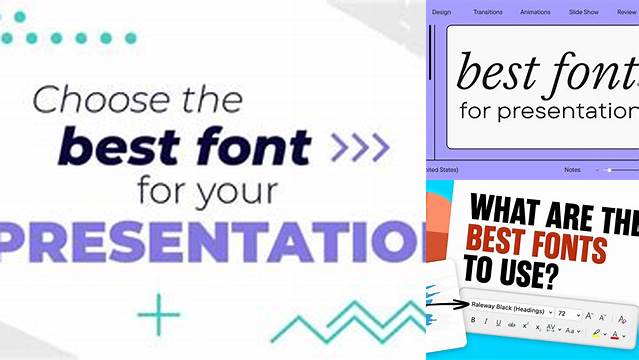
Best PowerPoint Fonts: Top Picks From Reddit
Hey guys! Ever feel like your PowerPoint presentation is falling flat? You've got the killer content, the amazing visuals, but something just isn't clicking? Chances are, your font might be the culprit. Choosing the right font is crucial for readability and grabbing your audience's attention. Think of it this way: your font is the voice of your presentation. Would you want a monotone drone or an engaging speaker?
Navigating the world of fonts can feel overwhelming, especially with so many options out there. That's why I decided to dive into the depths of Reddit – a goldmine of opinions and insights – to uncover the best fonts for PowerPoint presentations, according to the users themselves. This article compiles the top recommendations and dives deep into why these fonts work so well, along with tips for making your presentations shine. We'll explore everything from classic choices that exude professionalism to more modern and creative options that can inject personality into your slides. So, buckle up, font fanatics, and let's get started!
Why Font Choice Matters in PowerPoint
Before we jump into specific font recommendations, let's quickly discuss why your font choice even matters in a PowerPoint presentation. It's easy to overlook, but your font plays a significant role in how your message is received. Imagine presenting a groundbreaking business proposal using Comic Sans – the font itself might distract from your message! The right font, on the other hand, can enhance your message, making it more impactful and memorable. Think of your font as a subtle but powerful tool in your presentation arsenal.
Firstly, readability is king. If your audience can't easily read your text, they'll quickly lose interest, no matter how brilliant your content. A clear, legible font ensures that your message is easily digestible and understood. Think about the size of the room, the projection quality, and the vision of your audience members. A fancy, decorative font might look beautiful on your computer screen, but it could become a blurry mess when projected onto a large screen. Secondly, font choice influences the overall tone and style of your presentation. A serif font like Times New Roman can convey a sense of tradition and formality, while a sans-serif font like Arial often feels more modern and clean. The font you choose should align with the subject matter and your intended audience. Are you presenting to a group of CEOs or a room full of creative designers? Your font choice should reflect the context.
Thirdly, consistency is key. Sticking to a limited number of fonts (typically two or three) throughout your presentation creates a polished and professional look. Too many fonts can make your slides feel cluttered and distracting. Choose a primary font for your body text and a secondary font for your headings or highlights. This creates visual hierarchy and makes your presentation easier to follow. Finally, consider the emotional impact of different fonts. Fonts have personalities! Some fonts feel friendly and approachable, while others feel serious and authoritative. Choosing a font that matches the mood you want to create can subtly influence how your audience perceives your message. A playful font might be perfect for a children's presentation, but it would be disastrous for a corporate pitch.
Top Font Recommendations from Reddit
Alright, let's get to the good stuff! After scouring Reddit threads and forums, I've compiled a list of the top font recommendations for PowerPoint presentations. These fonts are praised for their readability, versatility, and overall visual appeal. Get ready to take notes!
1. Lato
Lato consistently pops up in Reddit discussions as a top choice for presentations. It's a sans-serif font designed by Łukasz Dziedzic, and it strikes a beautiful balance between being modern and professional. Its semi-rounded details give it a warm and friendly feel, while its strong structure ensures excellent readability, even at smaller sizes. Lato is a fantastic option for both body text and headings, making it a versatile workhorse for any presentation. Redditors rave about its clean lines and how well it projects on screens. Many mention that it's a great alternative to Arial or Helvetica, offering a more contemporary feel without sacrificing readability. If you're looking for a font that's both approachable and professional, Lato is definitely worth checking out.
When using Lato, think about pairing it with a slightly bolder font for your headings to create visual contrast. Lato Light can be a great option for subheadings or captions, adding a touch of elegance to your slides. One of the great things about Lato is its availability – it's a free Google Font, so you can easily incorporate it into your presentations without any licensing hassles. Plus, it's a web-safe font, meaning it will render consistently across different devices and browsers, ensuring your presentation looks its best no matter where it's viewed. In short, Lato is a reliable and stylish choice that will elevate your PowerPoint presentations.
2. Open Sans
Another Reddit favorite, Open Sans is a humanist sans-serif font designed by Steve Matteson. It's optimized for print, web, and mobile interfaces, making it an exceptionally versatile choice for presentations. Its open forms and neutral-yet-friendly appearance contribute to its excellent readability, especially in body text. Open Sans is often described as a clean and uncluttered font, which makes it ideal for presentations where you want the content to take center stage. Redditors appreciate its versatility and its ability to work well in a variety of contexts, from business presentations to educational lectures.
Open Sans is a fantastic choice if you're aiming for a modern and approachable aesthetic. Its clear and legible letterforms make it easy on the eyes, even for extended periods of reading. When using Open Sans, consider using different weights (like Open Sans Bold or Open Sans Light) to create visual hierarchy within your slides. You can also pair it with a serif font for your headings to add a touch of sophistication. Like Lato, Open Sans is a free Google Font, making it readily accessible and easy to use. This is a huge advantage, as you don't have to worry about purchasing a font license or encountering compatibility issues. Open Sans is a solid, dependable choice for any presentation that prioritizes clarity and readability.
3. Montserrat
For a font that exudes modern elegance, Montserrat is a stellar choice. This geometric sans-serif typeface, inspired by early 20th-century urban typography, has gained immense popularity in recent years, and for good reason. Montserrat boasts a clean, sophisticated look that works beautifully for headings and subheadings, adding a touch of class to your slides. Redditors frequently recommend Montserrat for its strong visual presence and its ability to make text stand out without being overly distracting. Its geometric forms give it a contemporary edge, making it a great option for presentations that want to convey a sense of innovation and style.
Choosing the right fonts for your PowerPoint presentations can make a world of difference. By selecting fonts that are legible, visually appealing, and appropriate for your audience and context, you can enhance your message and create a more engaging and impactful presentation. Remember the tips and font recommendations we've discussed in this article, and don't be afraid to experiment and find what works best for you. Whether you opt for a classic choice like Calibri or a more modern option like Montserrat, the key is to prioritize readability, consistency, and visual appeal. So, go forth and create presentations that shine, one font at a time! You've got this, guys!